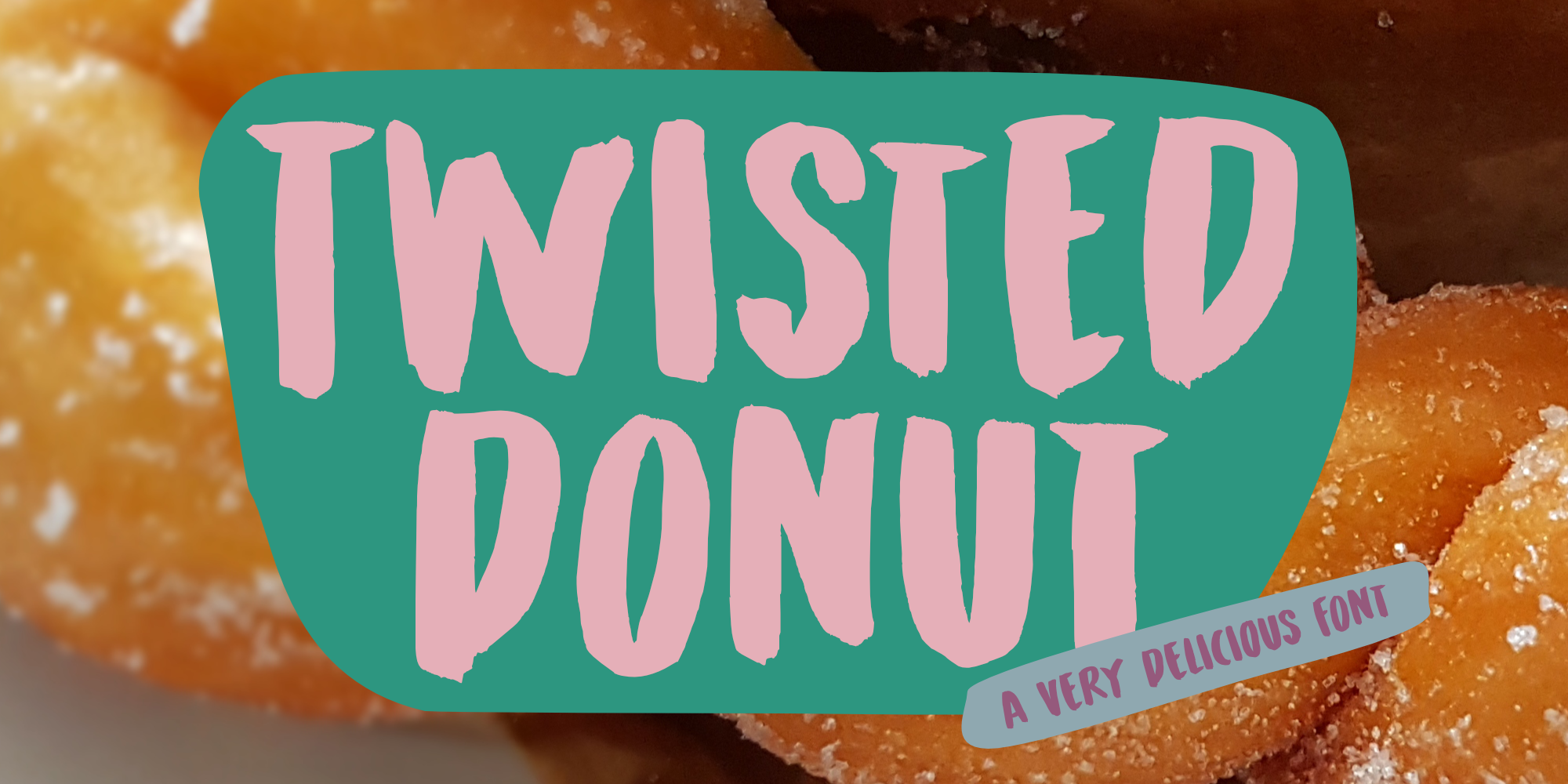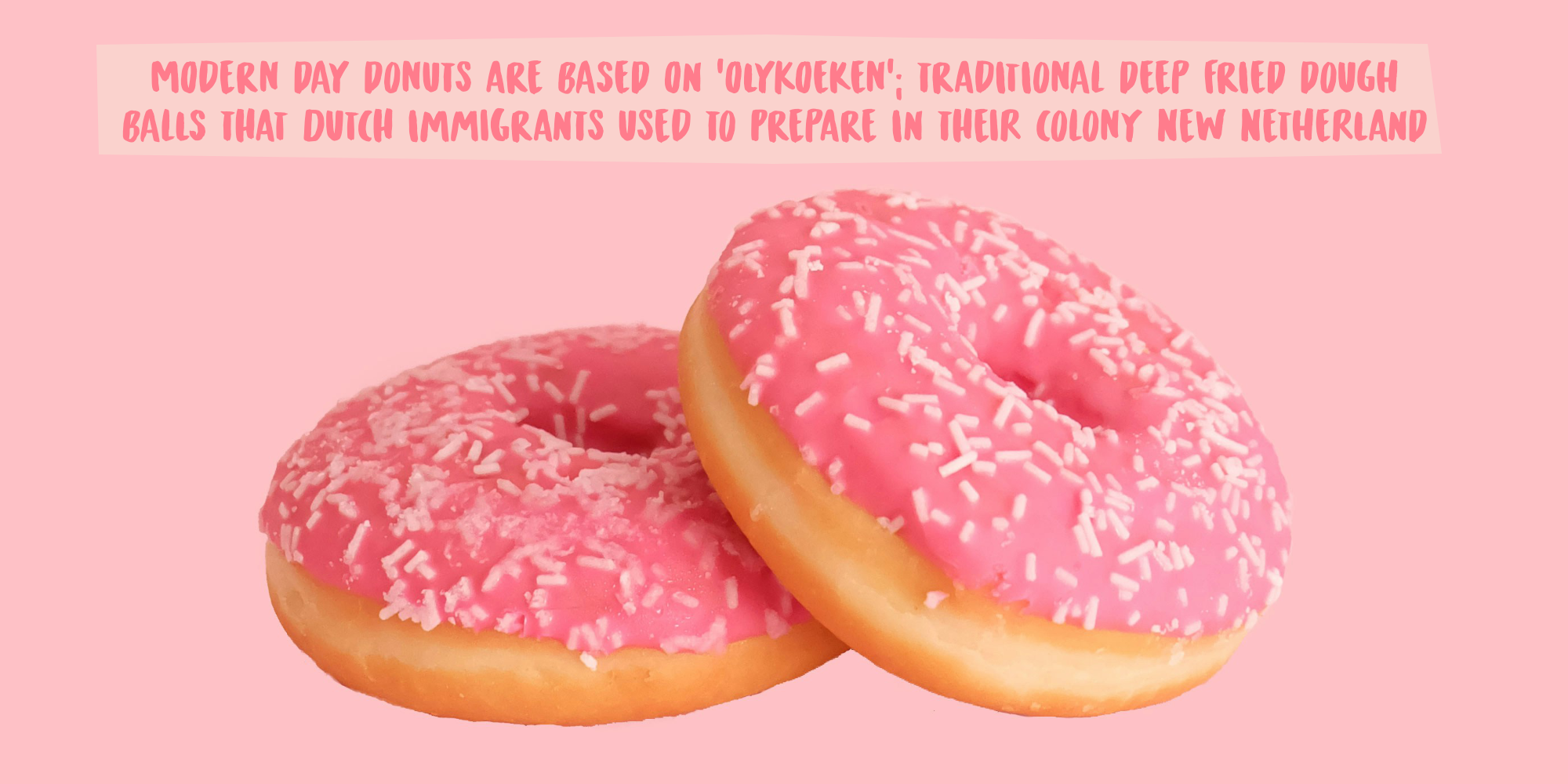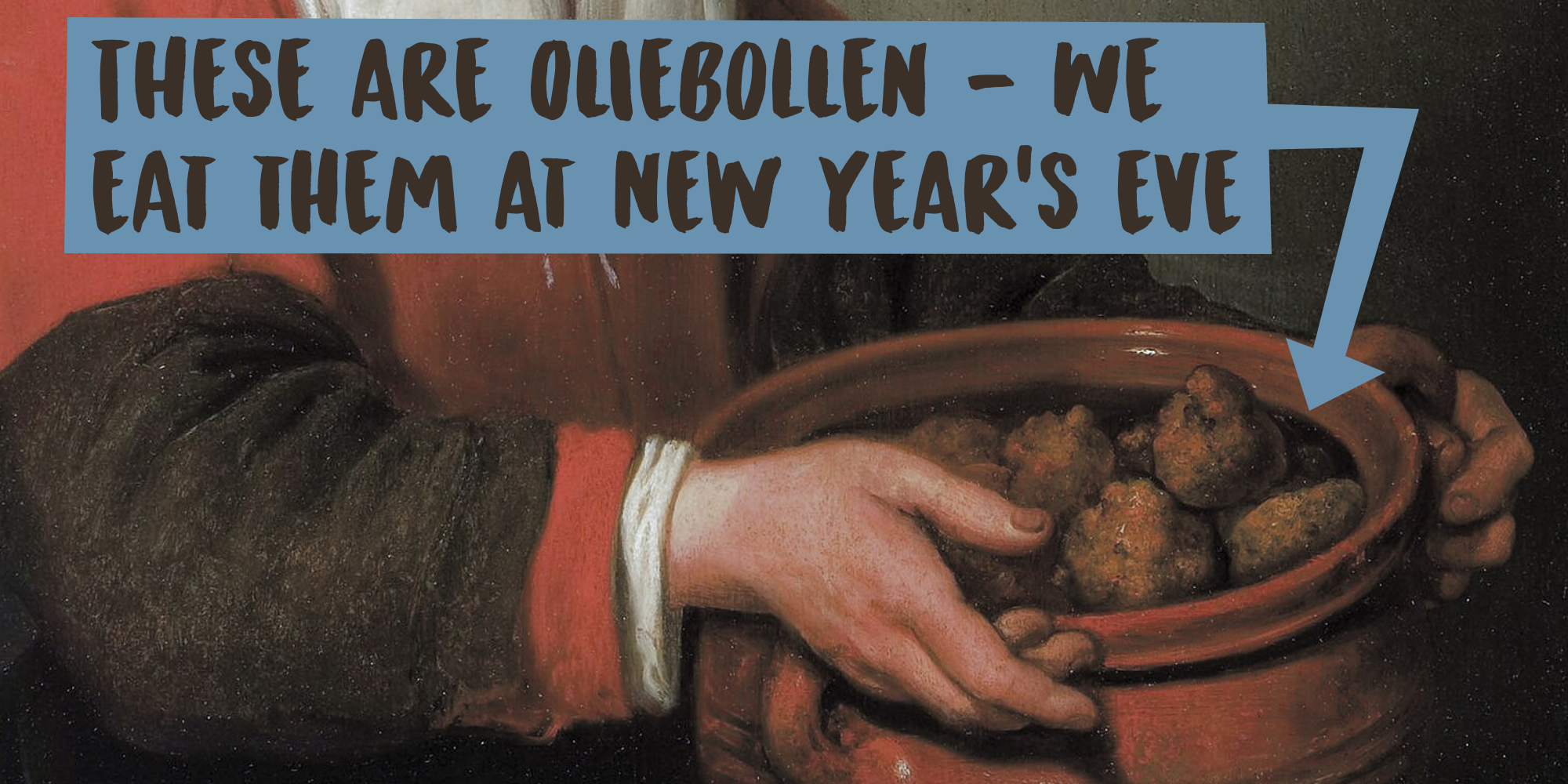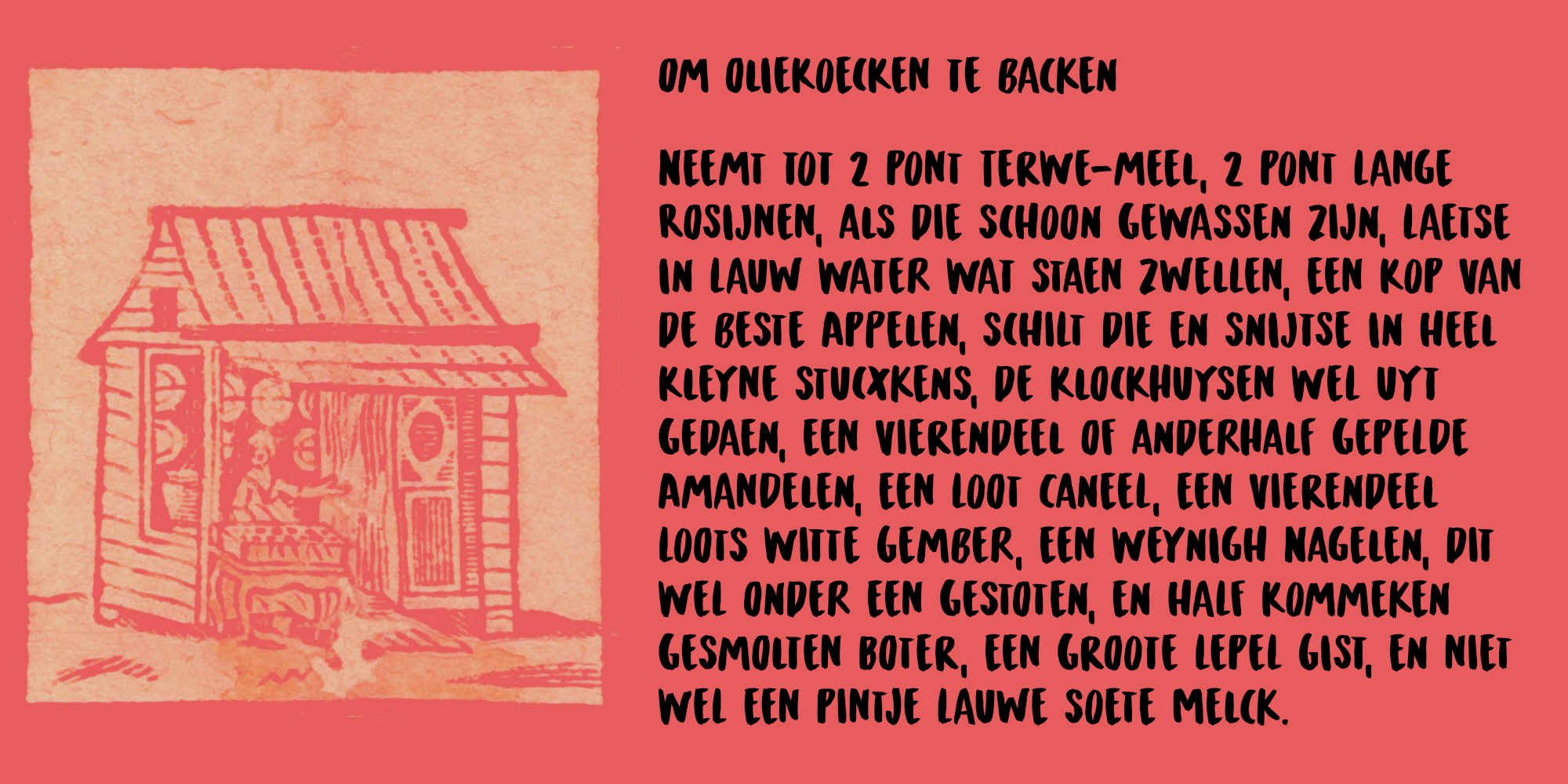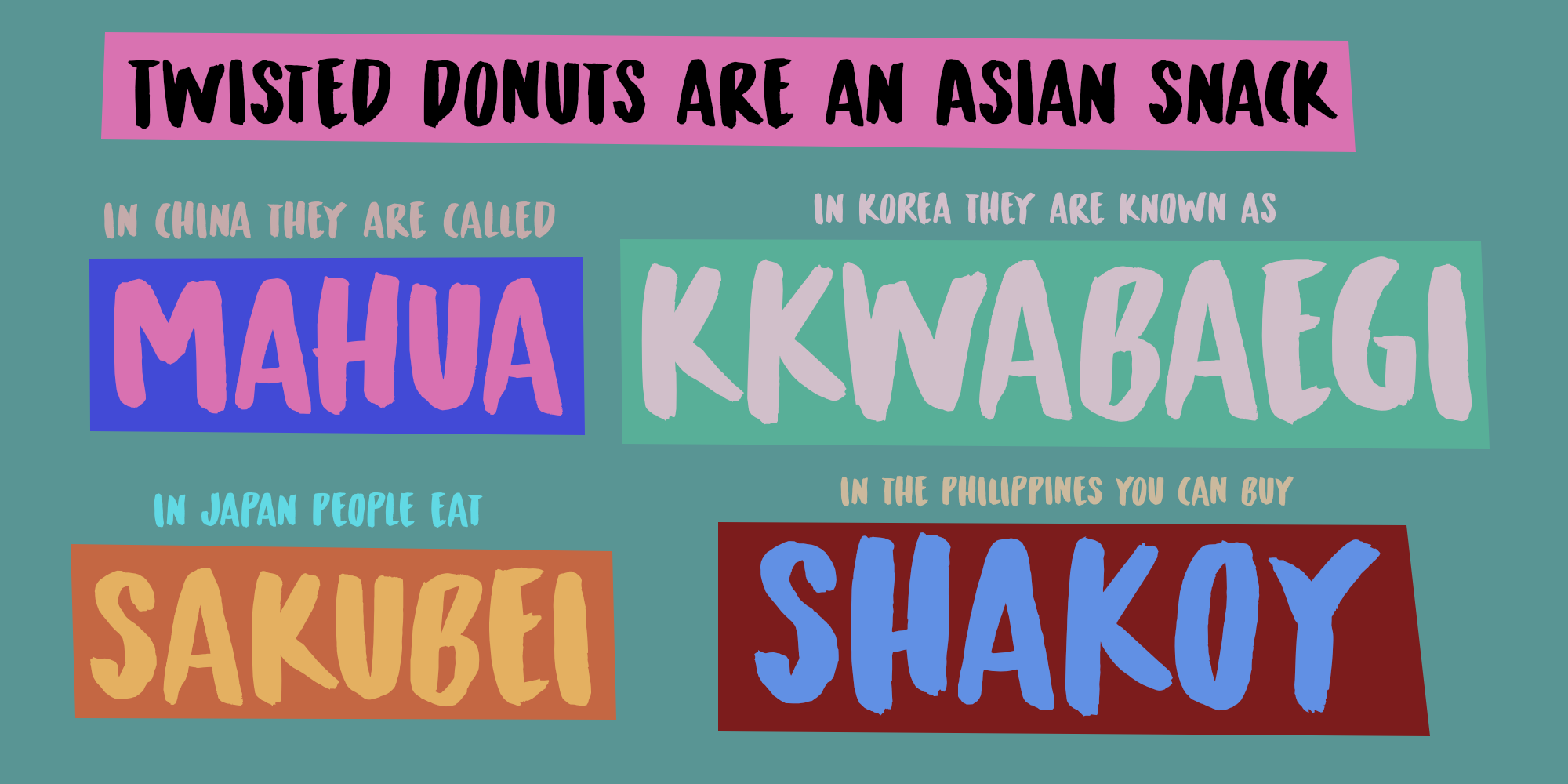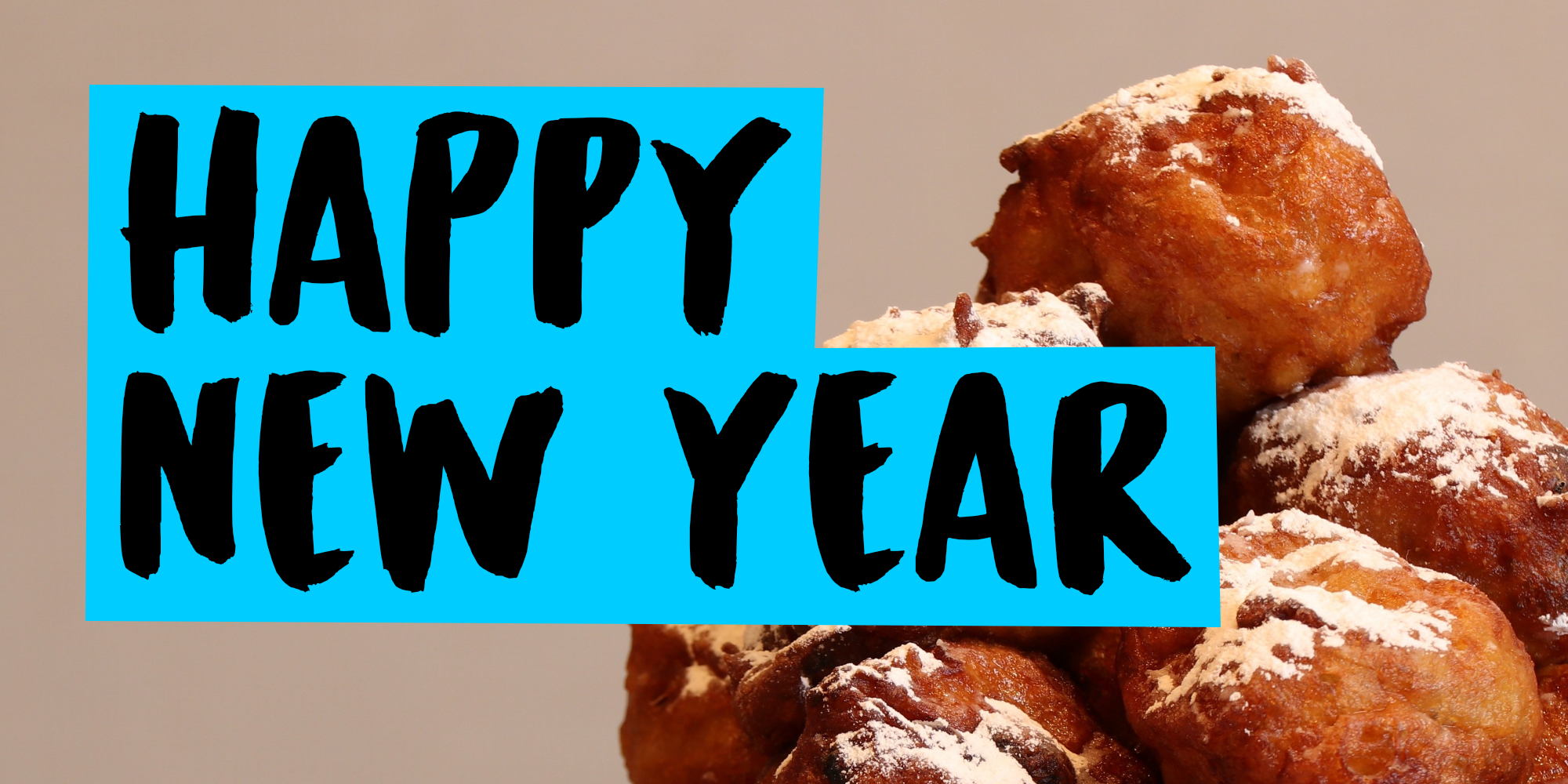
Twisted Donut (2 fonts)
Twisted Donut was made using a horse hair brush and Chinese ink. It comes with extensive language support and a set of alternates, so enjoy!